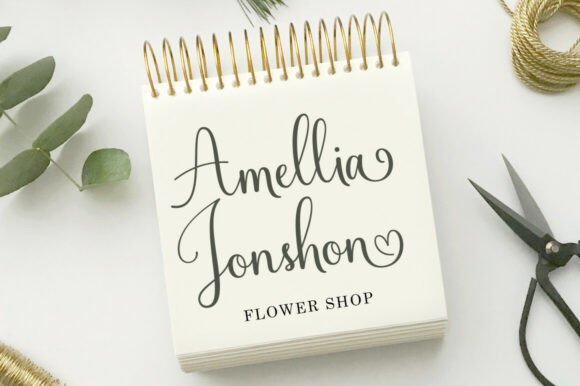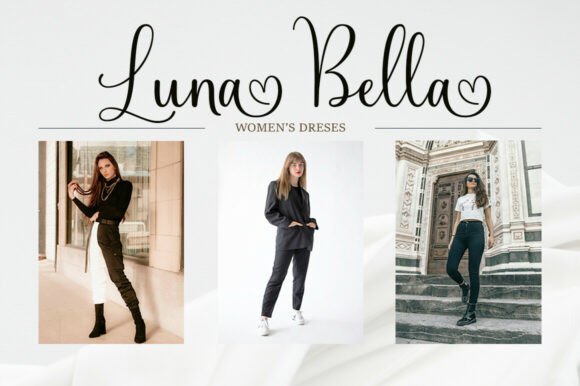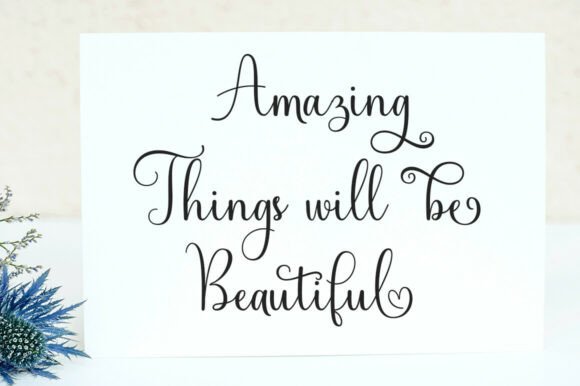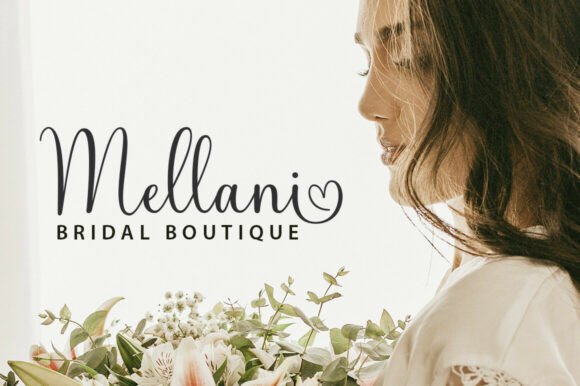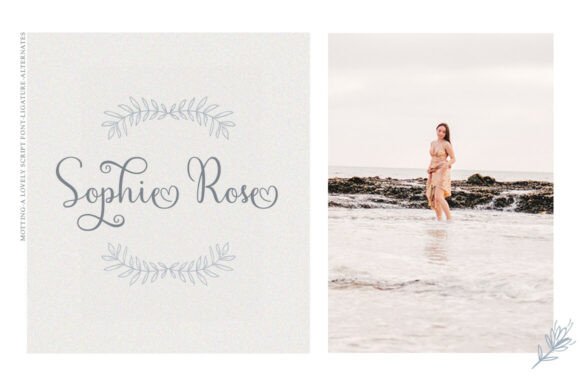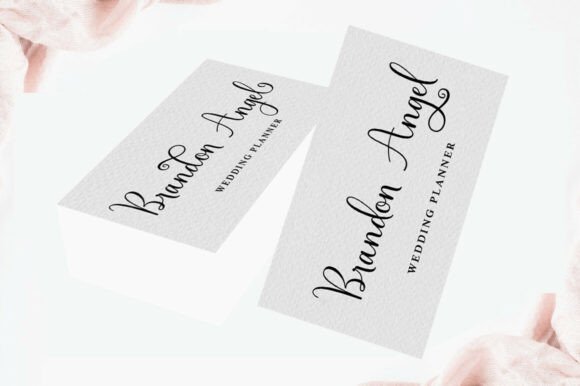
Introducing Angelica Font: Elevate Your Designs with Elegance and Sophistication
In the world of typography, few fonts capture the essence of luxury and sophistication as effortlessly as Angelica. This elegant modern calligraphy font is designed to bring a touch of romance and class to any design project. With its flowing strokes, graceful curves, and refined letterforms, Angelica has become a go-to choice for designers and crafters looking to create stunning visual content.
The Characteristics of Angelica Font
Angelica’s design is rooted in traditional calligraphy, yet it boasts a distinctly modern feel. The font features:
- Flowing Strokes: Angelica’s strokes are fluid and dynamic, giving the font a sense of movement and energy.
- Graceful Curves: The font’s curves are meticulously crafted to create a sense of elegance and refinement.
- Refined Letterforms: Each letterform is carefully designed to exude luxury and sophistication, making Angelica perfect for high-end designs.
Perfect for Wedding Invitations and Branding
Angelica’s luxurious feel makes it an ideal choice for wedding invitations, where creating a lasting impression is paramount. The font’s elegant appearance also lends itself well to branding, particularly for businesses that want to convey a sense of sophistication and refinement.
Whether you’re designing a logo, business card, or packaging, Angelica can help elevate your brand’s visual identity. Its versatility allows it to be used in various design contexts, from:
- Wedding Invitations: Create beautiful, bespoke wedding invitations that set the tone for a luxurious celebration.
- Branding: Develop a strong brand identity with Angelica’s elegant and sophisticated letterforms.
- Upscale Packaging: Add a touch of luxury to your product packaging with Angelica’s refined and decorative flair.
- Editorial Designs: Use Angelica to create visually stunning editorial content, such as magazine covers, articles, and advertisements.
Why Designers and Crafters Love Angelica
Designers and crafters appreciate Angelica for its:
- Timeless Charm: Angelica’s classic design ensures that it remains relevant, even as design trends evolve.
- Decorative Flair: The font’s elegant and refined appearance adds a touch of sophistication to any design.
- Versatility: Angelica can be used in various design contexts, making it a valuable addition to any designer’s font collection.
Tips for Using Angelica Font Effectively
To get the most out of Angelica, consider the following tips:
- Pair with Neutral Fonts: Combine Angelica with neutral fonts to create a striking contrast and add visual interest to your design.
- Use for Headlines and Titles: Angelica is perfect for headlines and titles, where its elegant appearance can make a lasting impression.
- Experiment with Colors: Try pairing Angelica with different colors to create unique and eye-catching designs.
Angelica font is a beautiful and elegant modern calligraphy font that can elevate any design project. Its luxurious feel, refined letterforms, and decorative flair make it perfect for wedding invitations, branding, upscale packaging, and editorial designs. Whether you’re a designer or crafter, Angelica is a valuable addition to your font collection. With its timeless charm and versatility, Angelica is sure to remain a go-to choice for designers looking to add a touch of romance and class to their work.